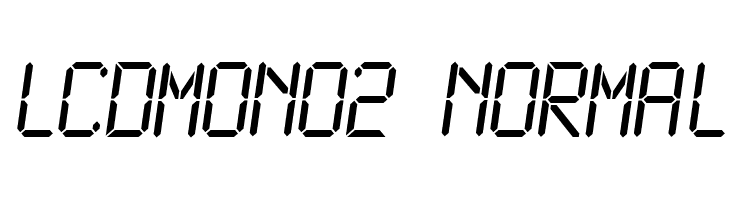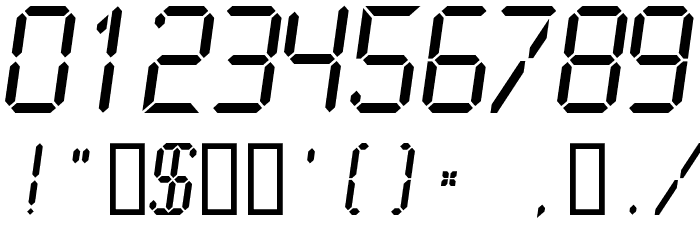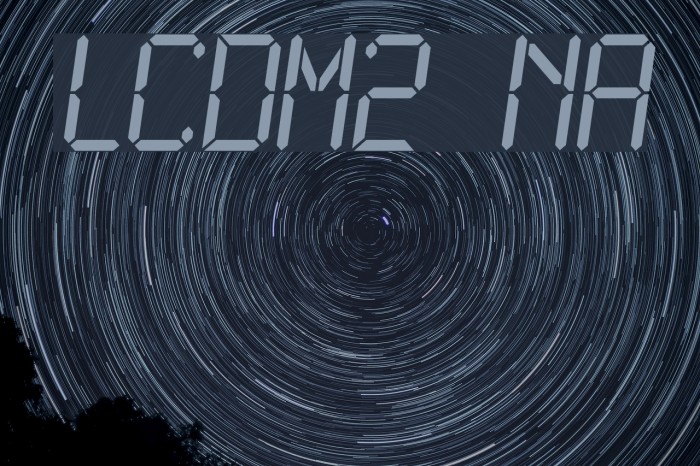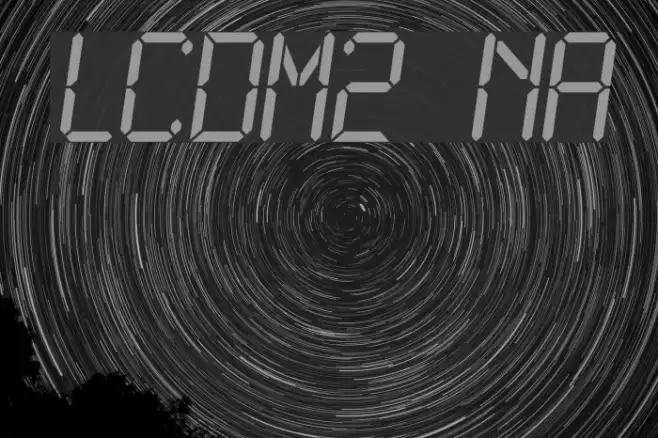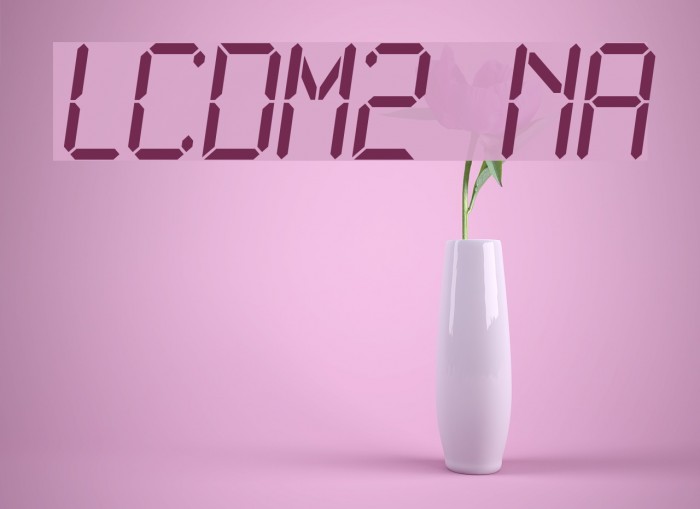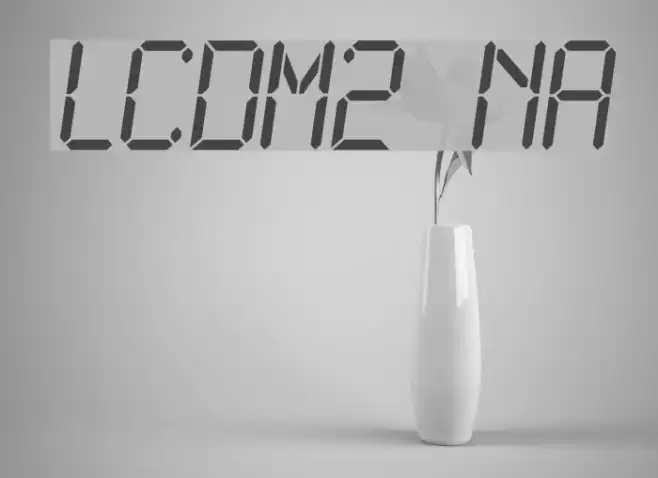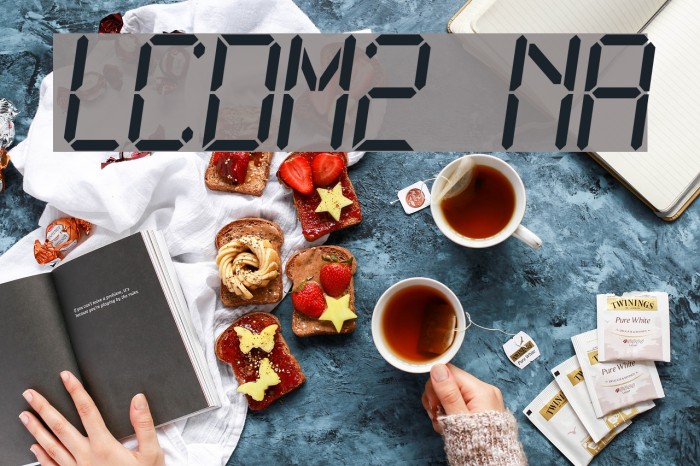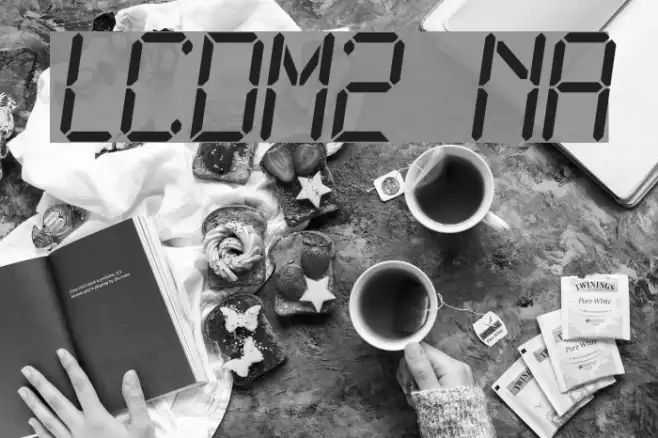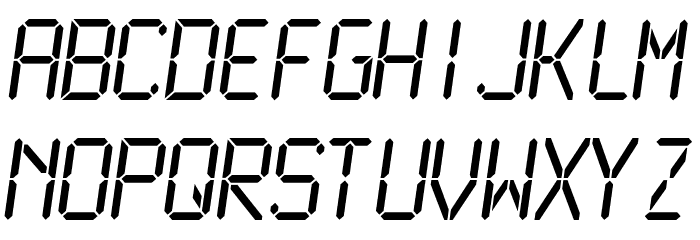
LCDMono2 Normal Font
LCDMono2 Normal Description
This font features a digital, segmented style reminiscent of old LCD displays. Each character is constructed using a series of straight lines and angles, creating a geometric and technical appearance. The uppercase and lowercase letters maintain a consistent height, contributing to a uniform look. The numbers follow the same segmented pattern, enhancing the digital aesthetic. Special characters are also designed in this segmented style, ensuring a cohesive appearance across all glyphs. The font's design is highly legible, making it suitable for digital displays or any project requiring a retro, tech-inspired look.
| Use Case | Digital displays, Tech-themed projects, Retro designs |
| Proposed Projects | Ideal for digital clocks, tech-themed designs, retro video games, and electronic device interfaces. |